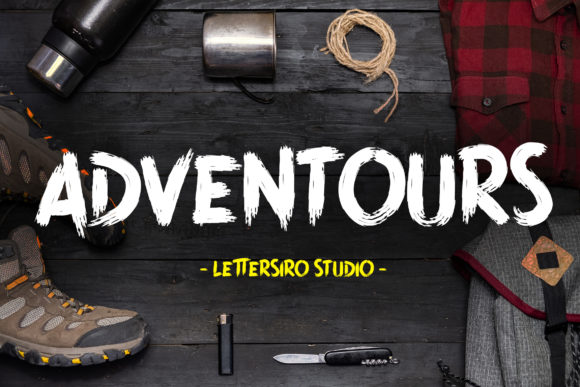
The Font that Stole My Heart: Adventours
I still remember the design project that led me to discover Adventours Font. I was working on a branding project for a outdoor gear company, and I needed a font that would convey a sense of adventure and friendliness. I had spent hours browsing through font libraries, but nothing seemed quite right. That was when I stumbled upon Adventours, and it instantly clicked. Its bold, chunky letters and warm feel perfectly captured the essence of the brand. In this article, I’ll share my love for Adventours, its features, and how to make the most of it in your designs.
- ✨ Versatility: Adventours is incredibly versatile, making it suitable for a wide range of contexts, from outdoor gear branding to craft projects.
- ✅ Readability: The font’s chunky letters ensure that it remains readable even at smaller sizes.
- 💥 Impact: Adventours adds a bold statement to any design, making it perfect for headings, titles, and emphasis.
While Adventours is an excellent font, it’s not without its quirks. For instance:
- 🤔 Limited use in body text: Due to its bold nature, Adventours might not be the best choice for lengthy body text. It’s better suited for headings and titles.
- ⚠️ Kerning issues: As with any font, kerning can be a issue, especially when using Adventours at smaller sizes or in combination with other fonts.
Adventours was designed with the intention of creating a font that would evoke a sense of adventure and friendliness. The designer aimed to craft a bold, yet approachable font that would be perfect for headings, titles, and emphasis. While the actual design process and inspiration might be unknown, it’s clear that Adventours has become a beloved font among designers and crafters.
| Font Name | Adventours Font |
| Author | Lettersiro Co. |
Q: What is the best use for Adventours Font?
A: Adventours is best used for headings, titles, and emphasis, where its bold and friendly feel can make a statement.
Q: Can I use Adventours for body text?
A: While possible, Adventours might not be the best choice for lengthy body text due to its bold nature. It’s better suited for shorter text passages or emphasis.